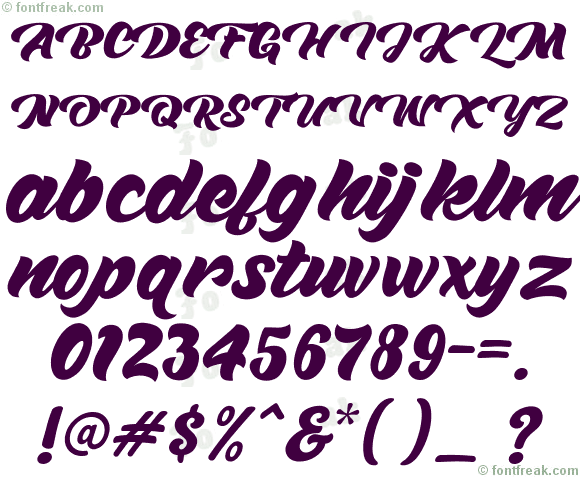
Tahu Bullats Italic
Tahu Bullats Italic is a striking display font designed by Burhan Afif, characterized by its playful and elegant cursive style. This font belongs to the script category, showcasing fluid lines and a dynamic appearance that captures attention. The stroke weight varies, offering a visual contrast that enhances its flowing nature. With its generous spacing, Tahu Bullats Italic exudes a sense of sophistication while maintaining readability. The font features decorative elements, including graceful swirls and loops that add a unique flair, making it perfect for a variety of design applications.
This versatile font is ideal for numerous use cases. It shines in wedding invitations, where its romantic curves create an inviting atmosphere. Additionally, it works beautifully on restaurant menus, adding a touch of elegance to the dining experience. For those in the entertainment industry, Tahu Bullats Italic can elevate movie posters, drawing in viewers with its captivating style. Content creators and social media managers will find it useful for crafting eye-catching graphics, while small business owners can utilize it for branding purposes, ensuring their promotional materials stand out.
The target audience for Tahu Bullats Italic includes graphic designers, small business owners, and content creators seeking a font that combines creativity and professionalism. This font is perfect for anyone looking to make a statement in their design projects.
What sets Tahu Bullats Italic apart is its ability to blend artistry with functionality. This font captures the essence of modern design while remaining accessible, making it a fantastic choice for those in search of a Tahu Bullats Italic font free download. Its unique characteristics and versatility ensure it will be a valuable asset to any creative endeavor.